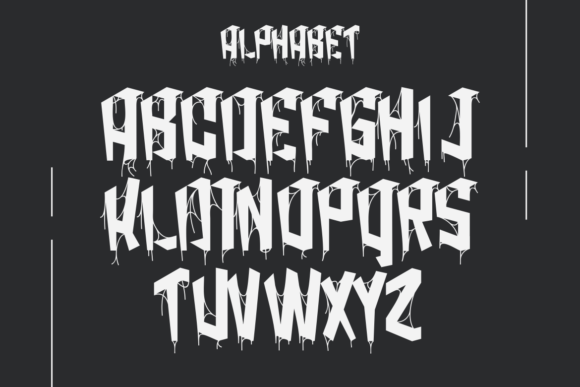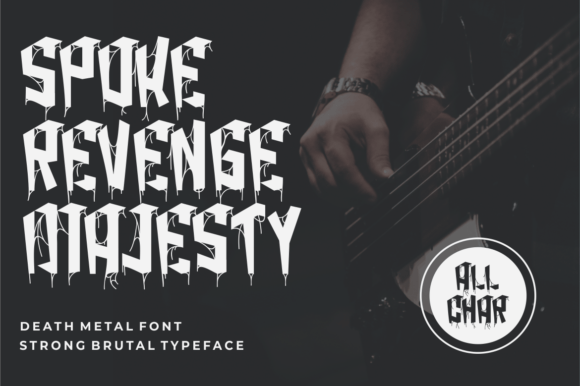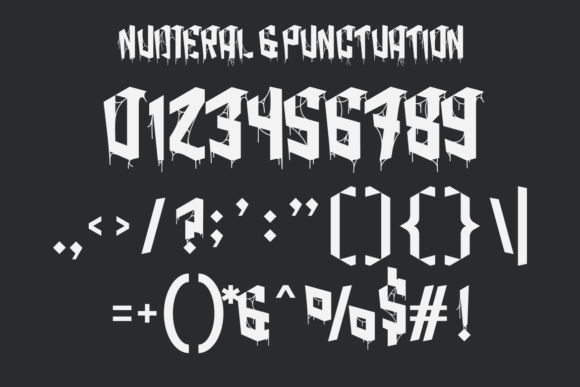
**ACHERON FONT** Modern Blackletter Font **WORLD HELL FONT**
Are you a designer or crafter looking for a unique and eye-catching font to elevate your designs? Look no further than the **Acheron Font**, a modern blackletter font that’s perfect for creating exquisite retro-urban designs, tattoo business branding, logos, vintage designs, and more. In this article, we’ll dive into the details of this distinct and highly detailed font, and explore its many uses and benefits.
What is Acheron Font?
The **Acheron Font**, also known as **WORLD HELL FONT**, is a modern blackletter font that’s inspired by the traditional blackletter styles of the past. However, this font takes it to the next level with its unique and intricate design, making it perfect for designers and crafters who want to add a touch of horror metal to their work.
Key Features of Acheron Font
So, what makes the **Acheron Font** so special? Here are some of its key features:
- Highly detailed design: The **Acheron Font** features intricate and detailed lettering that’s perfect for creating bold and eye-catching designs.
- Modern blackletter style: This font takes inspiration from traditional blackletter styles, but with a modern twist that’s perfect for horror metal and retro-urban designs.
- Distinctive look: The **Acheron Font** has a unique and distinctive look that sets it apart from other fonts, making it perfect for designers and crafters who want to stand out from the crowd.
Uses for Acheron Font
The **Acheron Font** is a versatile font that can be used for a wide range of design projects, including:
- Retro-urban designs: The **Acheron Font** is perfect for creating bold and eye-catching designs that are inspired by the urban landscape.
- Tattoo business branding: This font is perfect for tattoo artists and studios who want to create a bold and edgy brand identity.
- Logos: The **Acheron Font** can be used to create unique and memorable logos that will help businesses stand out from the competition.
- Vintage designs: This font can be used to create vintage-inspired designs that are perfect for advertising, packaging, and more.
Benefits of Using Acheron Font
So, why should you choose the **Acheron Font** for your design projects? Here are some of the benefits of using this font:
- Unique and eye-catching: The **Acheron Font** is a unique and eye-catching font that will help your designs stand out from the crowd.
- High-quality design: This font features a highly detailed design that’s perfect for creating professional-looking designs.
- Versatile: The **Acheron Font** can be used for a wide range of design projects, from retro-urban designs to vintage advertising.
Tips for Using Acheron Font
Here are some tips for getting the most out of the **Acheron Font**:
- Use it bold and big: The **Acheron Font** is perfect for creating bold and eye-catching designs, so don’t be afraid to use it in large sizes.
- Experiment with colors: This font looks great in a range of colors, from bold and bright to dark and muted.
- Pair it with other fonts: The **Acheron Font** can be paired with other fonts to create interesting and unique design combinations.
In conclusion, the **Acheron Font** is a unique and highly detailed modern blackletter font that’s perfect for designers and crafters who want to add a touch of horror metal to their work. With its intricate design and versatile uses, this font is sure to become a favorite among designers and crafters. So why not give it a try and see what amazing designs you can create?